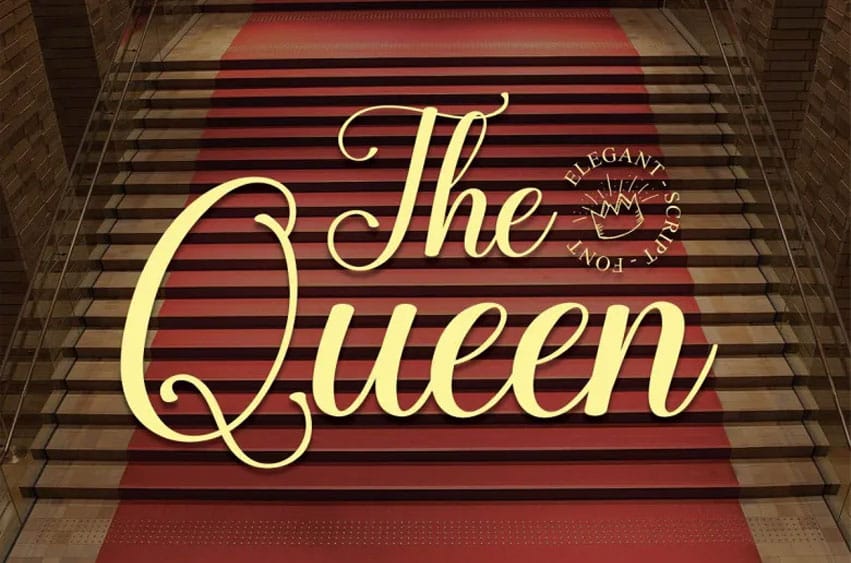
The Queen Elegant Font is a stylish script calligraphy font with intricate detail.
Perfect for use across a range of subjects and occasions, The Queen adds vibrancy and depth to any typeface in your font library.